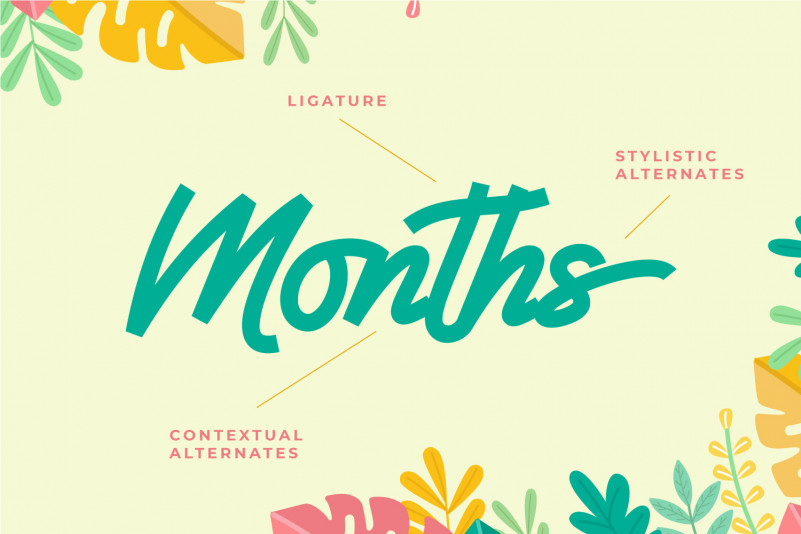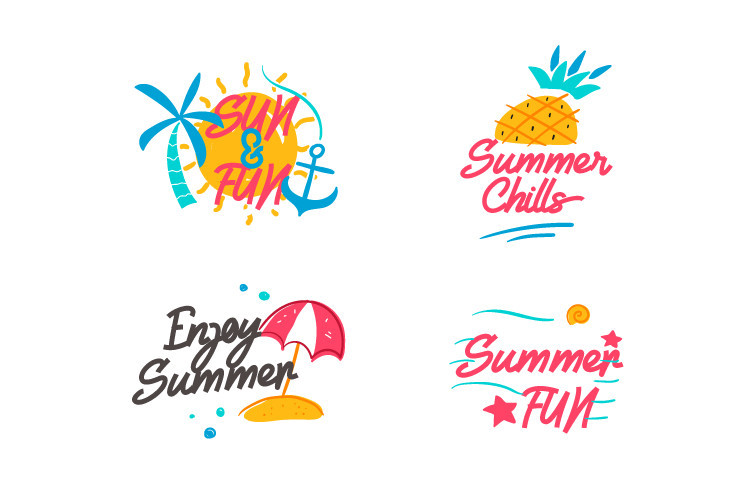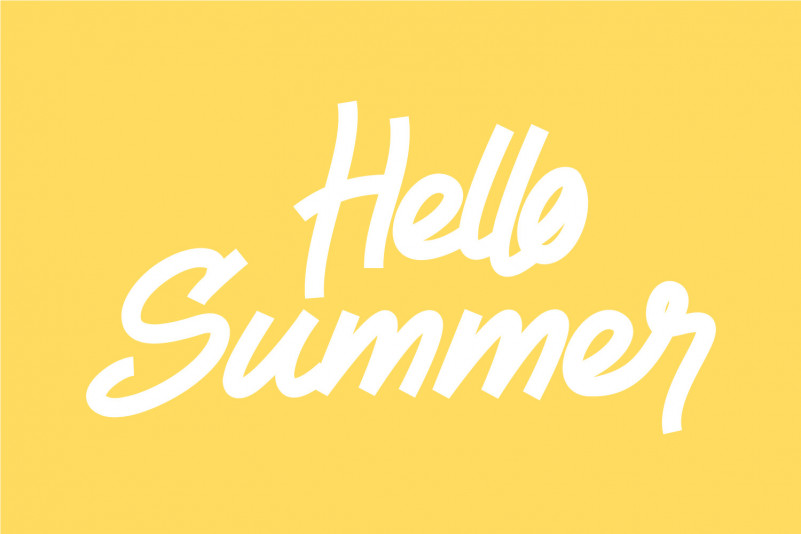
Saturnalia Font
Saturnalia Script Font
This typeface is a lovely and timeless handwritten font. It is the best choice for creating eye catching logos, branding and quotes. Every letter has a unique and beautiful touch, which will make your design come alive!